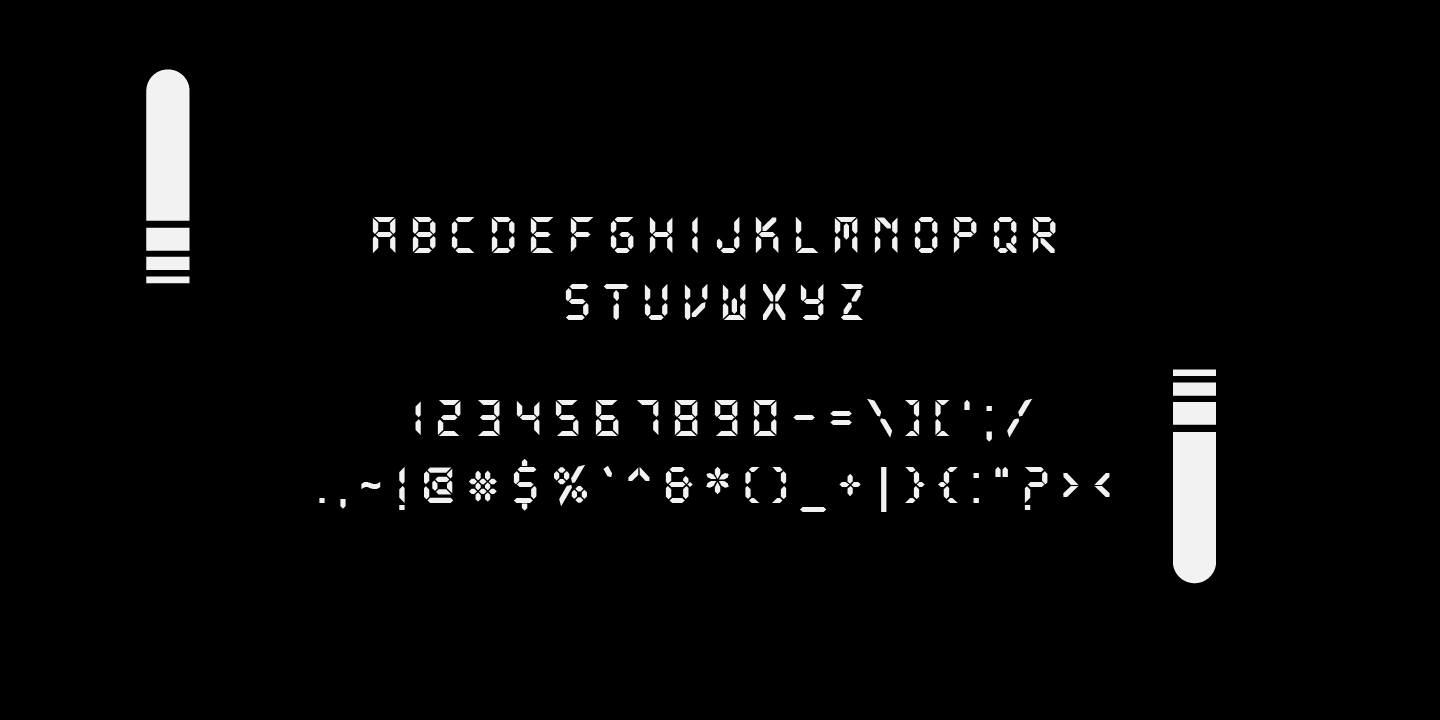
Introduction to Machines Font
As a designer, have you ever been stuck trying to find the perfect font to bring your creative project to life? It’s like searching for a needle in a haystack, only to find something that’s almost, but not quite, what you’re looking for. But what if I told you there’s a design resource that’s about to change the game? Say hello to the Machines Font, a stunning typeface inspired by the old school monitors that once lit up our computer screens.
This unique font is a treasure trove of retro-futuristic charm, perfect for designers looking to add a touch of nostalgia to their work. With its clean lines, geometric shapes, and transparent background, the Machines Font is a high-quality addition to any design project. And the best part? It’s available for free download, making it a valuable resource for designers of all levels.
Key Features of Machines Font
- High-quality design resource ideal for creative projects, offering a unique and modern aesthetic.
- Features a transparent background, allowing for easy customization and integration into any design.
- Perfect for use in logos, branding materials, and other design elements where a modern and sleek look is desired.
Honest Review: Machines Font
I recently came across the Machines Font and I must say, it’s been a game-changer for my latest creative project. This free download is a treasure trove of futuristic typography that’s perfect for any sci-fi themed design.
- ✨ High-quality design that’s both sleek and modern
- ✨ Perfect for designs that require a bold, futuristic feel
- ✨ Includes a transparent background option for added flexibility
- ⚠️ Limited character set, which may not be ideal for extensive text-based designs
- ⚠️ Not as versatile as some other fonts, which may limit its use in certain creative projects
Overall, I’m thoroughly impressed with the Machines Font. Its high-quality design and sleek aesthetic make it an excellent addition to any design resource. While it may not be perfect for every creative project, it’s a fantastic option for those looking for a bold, futuristic font. I’ll definitely be keeping this one in my design arsenal for future use.
Machines Font
The Machines Font is a versatile and unique design resource ideal for creative projects. With a transparent background, it’s perfect for overlaying on images or using as a standalone element.
Tips for Getting the Most Out of Machines Font
For optimal results, use Machines Font in conjunction with high-quality images or graphics. Experiment with different font sizes, colors, and styles to create unique and eye-catching designs.
Machines Font is ideal for a variety of creative projects, including:
1. Branding and logos
2. Marketing materials (brochures, flyers, business cards)
3. Digital graphics and animations